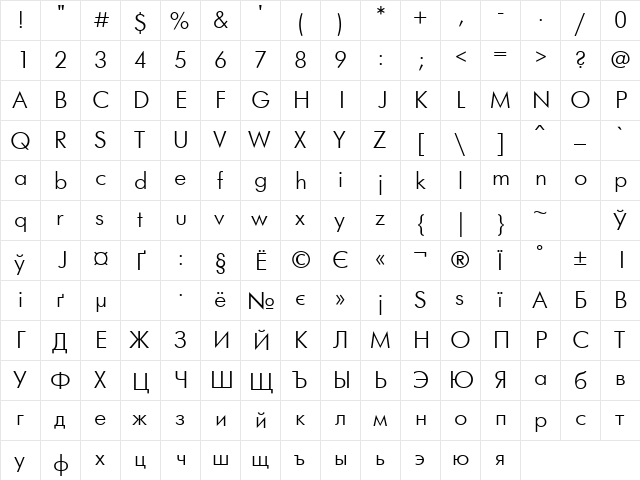
ft72 Cyrillic
Design Context for ft72 Typeface
ft72 offers clean, dependable letterforms without strong stylistic allegiance, making it a practical choice for designers who need flexibility.